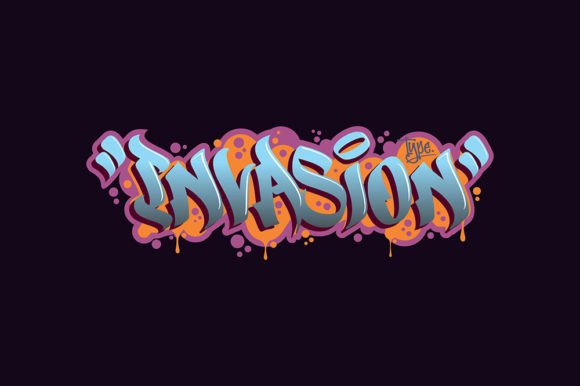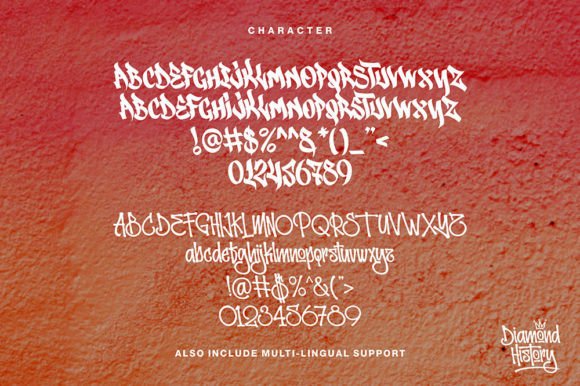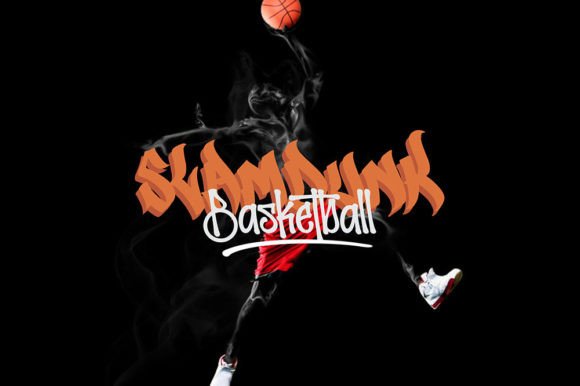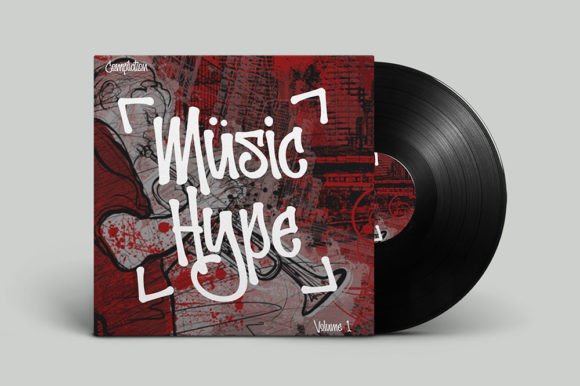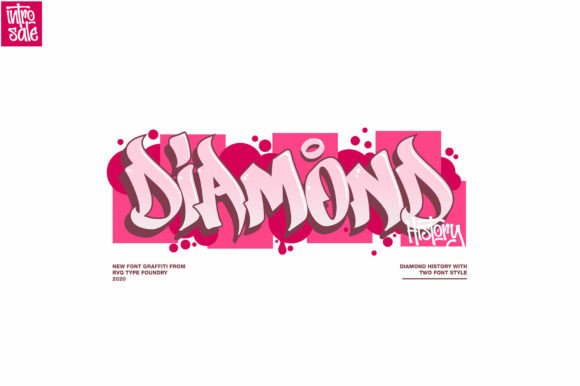
Diamond History Font: The Ultimate Urban-Inspired Accent for Designers and Crafters
Are you a designer or crafter looking for a font that adds an urban-inspired accent to your projects? Look no further than Diamond History Font. This cool, graffiti-style display font is perfect for a wide range of projects, from posters and flyers to logos and branding materials. In this article, we’ll explore the history of Diamond History Font, its features, and how you can use it to elevate your designs.
The Origins of Diamond History Font
Diamond History Font is a relatively new font, designed to meet the growing demand for urban-inspired typography. The font’s creator was inspired by the graffiti and street art scenes, where bold, edgy lettering is used to express oneself and add a touch of rebelliousness to any design. With Diamond History Font, you can bring that same energy and attitude to your projects.
Key Features of Diamond History Font
Diamond History Font is a stylish and trendy font that offers a range of features that make it perfect for designers and crafters. Some of its key features include:
- Graffiti-style lettering: Diamond History Font features bold, edgy lettering that’s reminiscent of graffiti and street art.
- Urban-inspired aesthetic: The font’s urban-inspired aesthetic makes it perfect for projects that need a cool, trendy vibe.
- Display font: Diamond History Font is a display font, designed to make a statement and grab attention.
How to Use Diamond History Font in Your Designs
Diamond History Font is a versatile font that can be used in a wide range of projects. Here are some ideas to get you started:
- Posters and flyers: Use Diamond History Font to create eye-catching posters and flyers that grab attention and make a statement.
- Logos and branding materials: The font’s urban-inspired aesthetic makes it perfect for logos and branding materials that need a cool, trendy vibe.
- Social media graphics: Use Diamond History Font to create social media graphics that stand out from the crowd and add a touch of personality to your online presence.
- Crafting projects: The font is also perfect for crafters who want to add a touch of urban-inspired flair to their projects, such as scrapbooking, card making, and more.
Tips and Tricks for Getting the Most Out of Diamond History Font
Here are some tips and tricks for getting the most out of Diamond History Font:
- Use it sparingly: Because Diamond History Font is a bold, attention-grabbing font, it’s best to use it sparingly to avoid overwhelming your design.
- Pair it with other fonts: The font pairs well with other fonts, such as sans-serif fonts, to create a visually interesting design.
- Experiment with colors: Diamond History Font looks great in a range of colors, from bold and bright to muted and pastel.
Diamond History Font is a cool, graffiti-style display font that’s perfect for designers and crafters who want to add an urban-inspired accent to their projects. With its bold, edgy lettering and urban-inspired aesthetic, this font is sure to make a statement and grab attention. Whether you’re creating posters, logos, social media graphics, or crafting projects, Diamond History Font is a versatile font that can help you achieve your design goals.